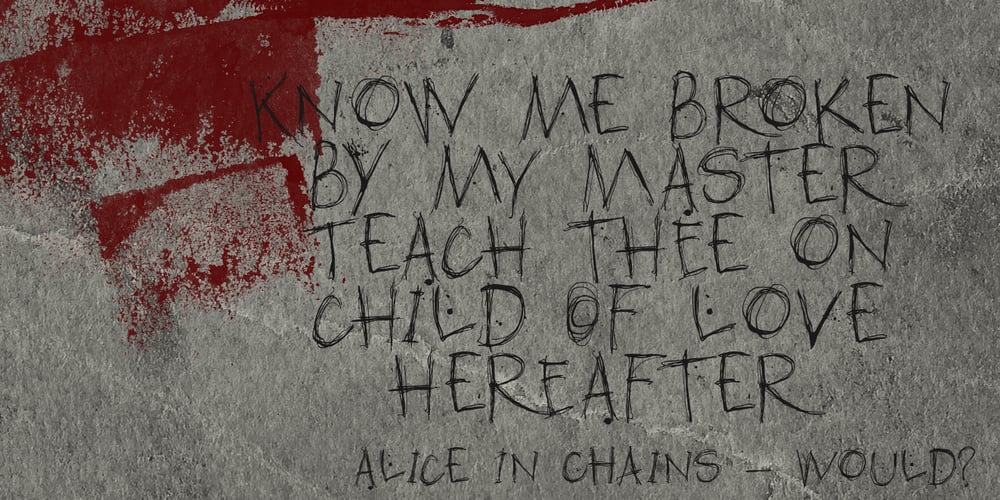
American Grunge Font Family was designed by David Kerkhoff and published by Hanoded. American Grunge contains 1 styles and family package options. American Grunge is a spooky font. It was created using a steel pen and China ink – and a lot of splatter. American Grunge is my tribute to that nineties wave of fantastic music coming out of Seattle.